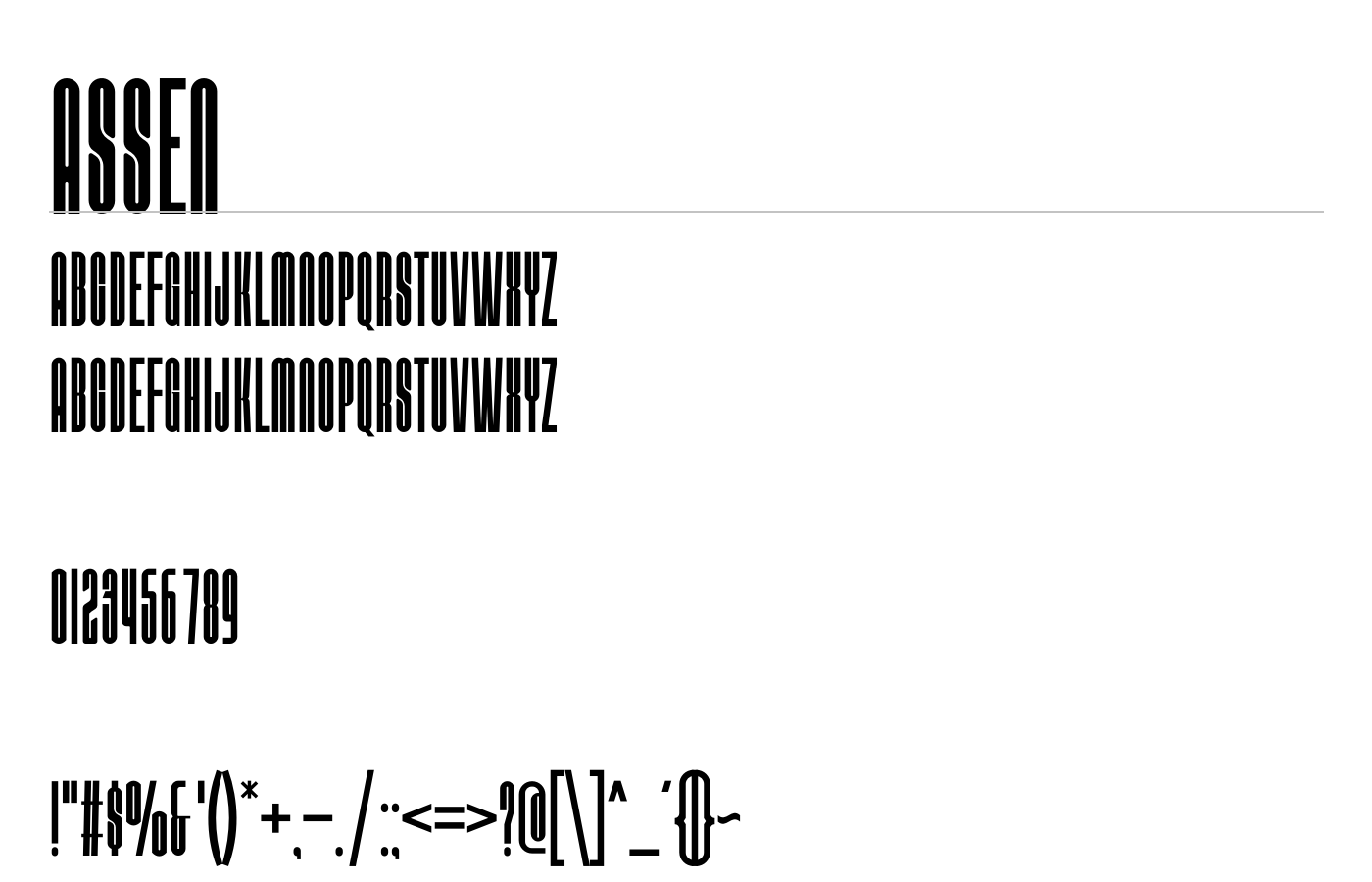
Assen is a condensed sans serif font with a tall, narrow structure that creates a striking and modern appearance. Its uniform stroke weight and lack of serifs give it a clean, minimalist feel, while the unusually elongated letterforms add a distinctive, elegant touch perfect for attention-grabbing headlines, logos, and display use. This font works well for fashion, editorial, and branding projects that need a bold yet sophisticated statement.
Assen Font
About Assen Font